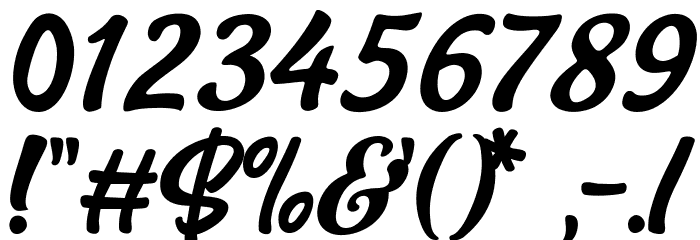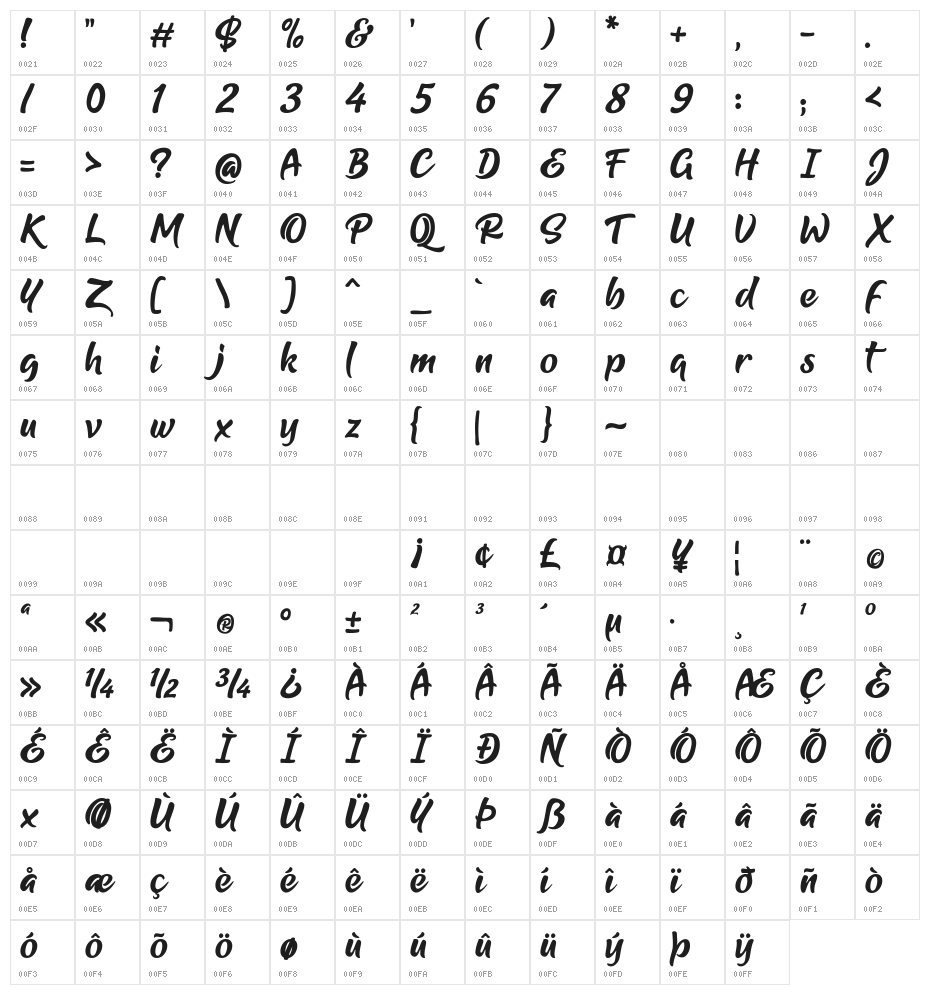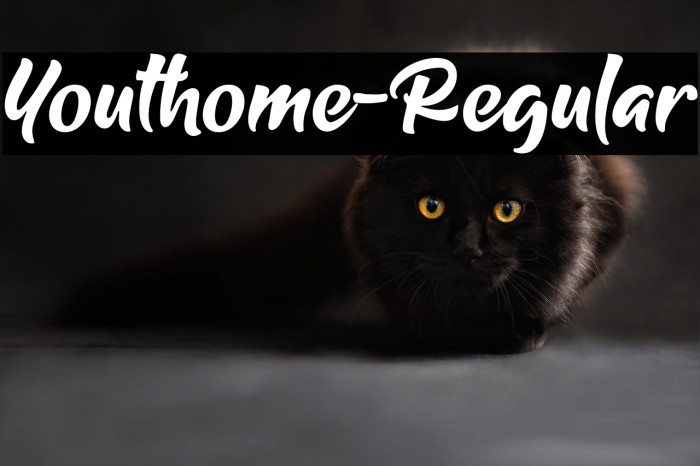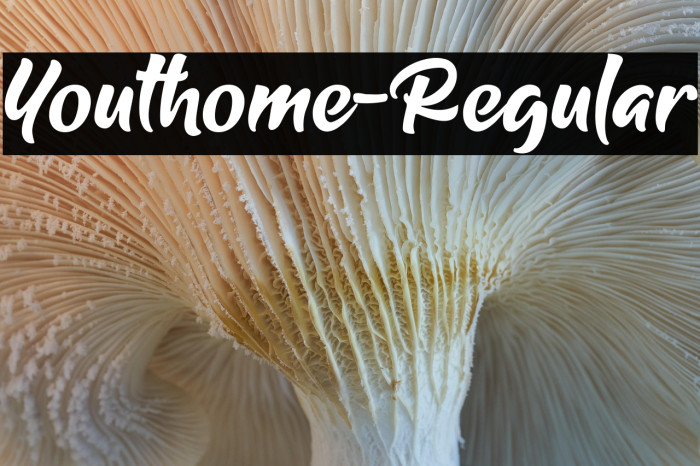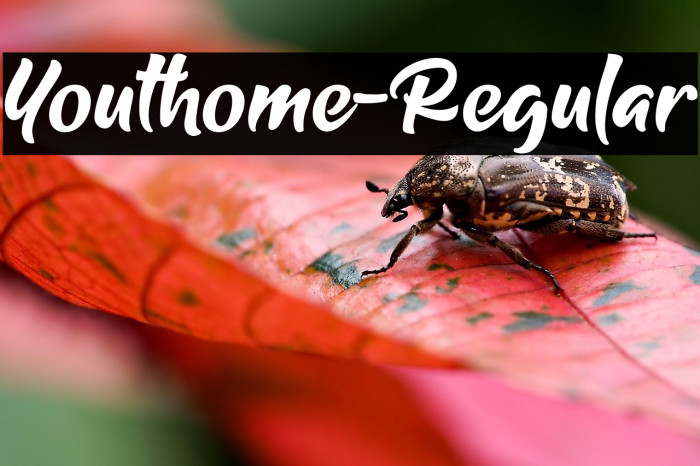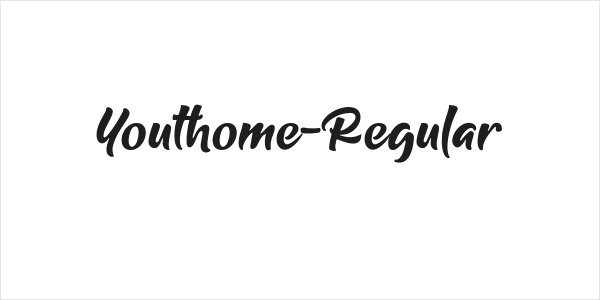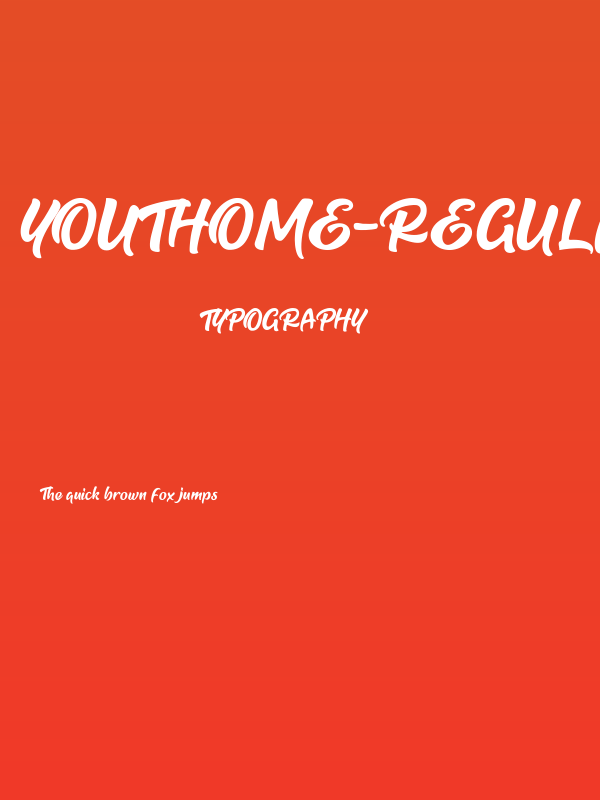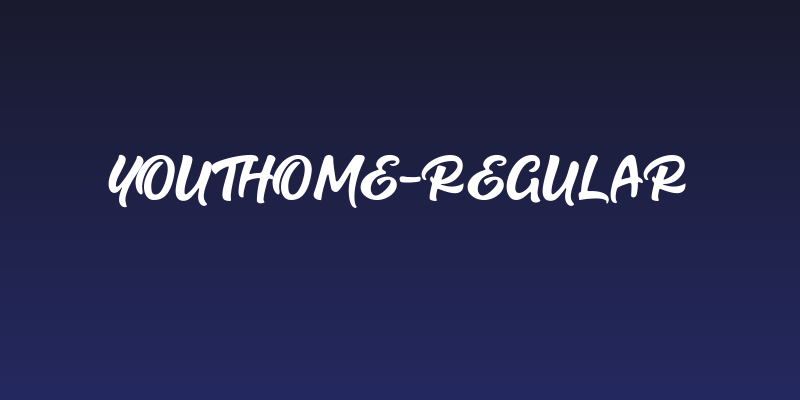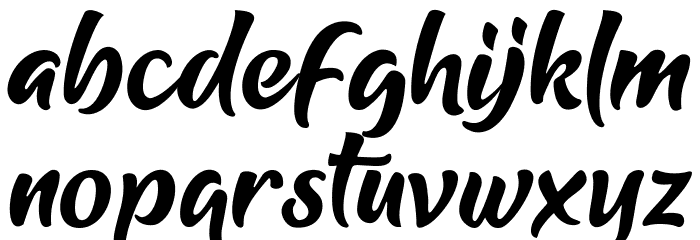
Youthome-Regular Font
Youthome-Regular Description
This font features a bold and dynamic script style with a handwritten appearance. The letters are fluid and connected, giving a sense of movement and energy. The uppercase letters are slightly more formal, while the lowercase letters maintain a casual and approachable feel. The numbers and special characters are consistent with the overall style, ensuring a cohesive look across all text elements. The strokes are thick and rounded, providing a strong presence on the page. This font is ideal for projects that require a personal touch or a sense of creativity and flair.
| Proposed Projects | Ideal for branding, invitations, greeting cards, and creative projects that require a personal touch. |